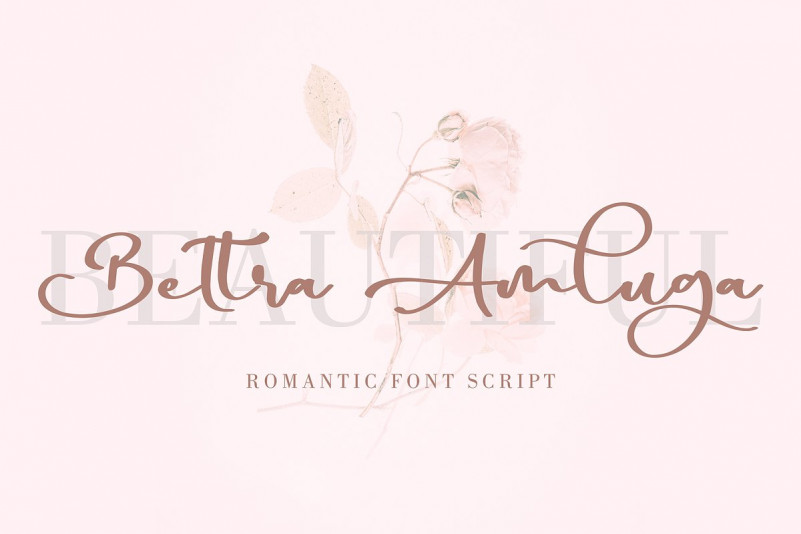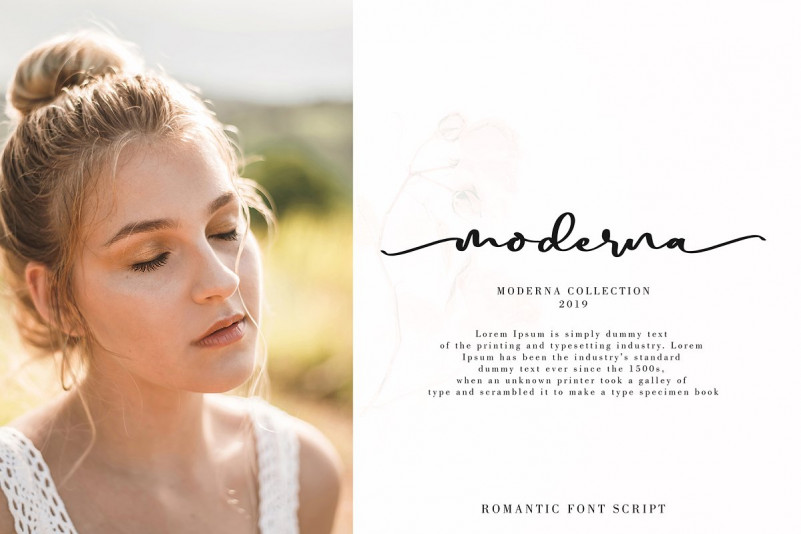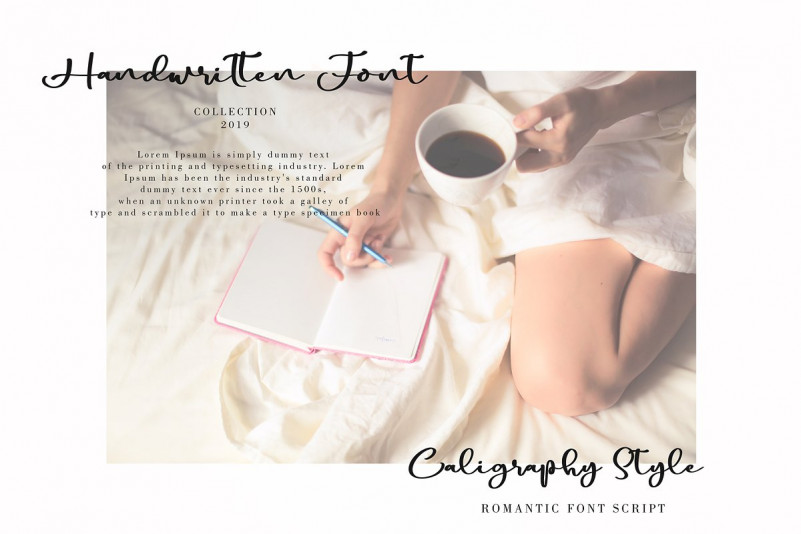
Bettra Amluga Font
Bettra Amluga handwritten font with new style, this font will perfect for many different project ex: quotes, logo, blog header, poster, banding, fashion, apparel, letter, invitation, stationery, etc…